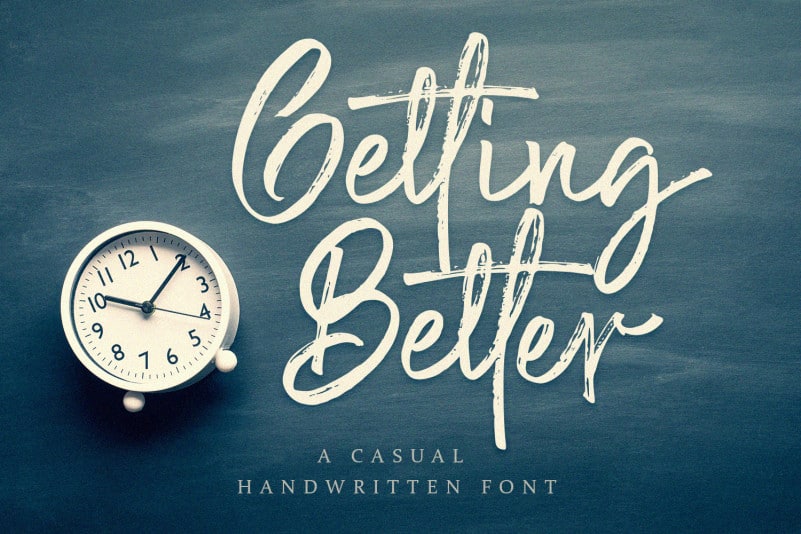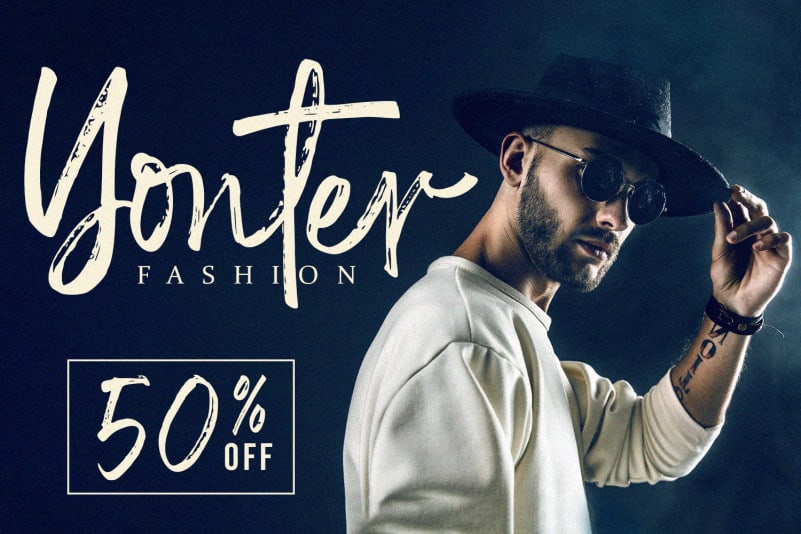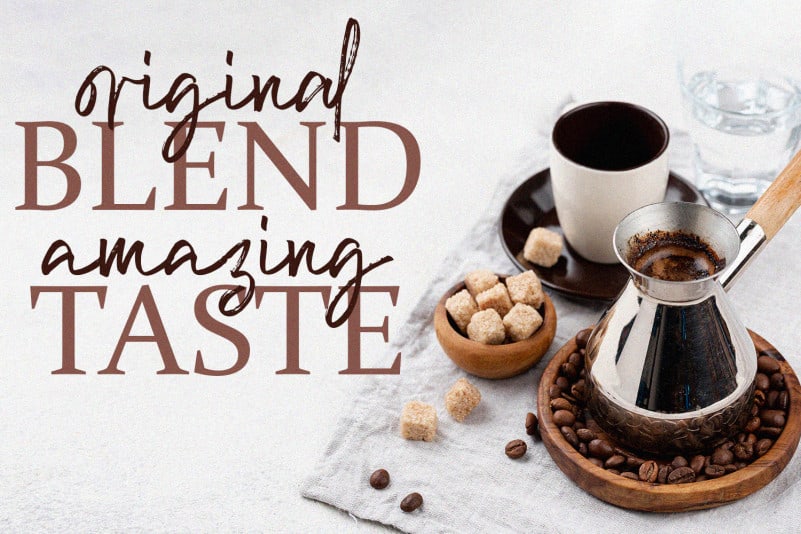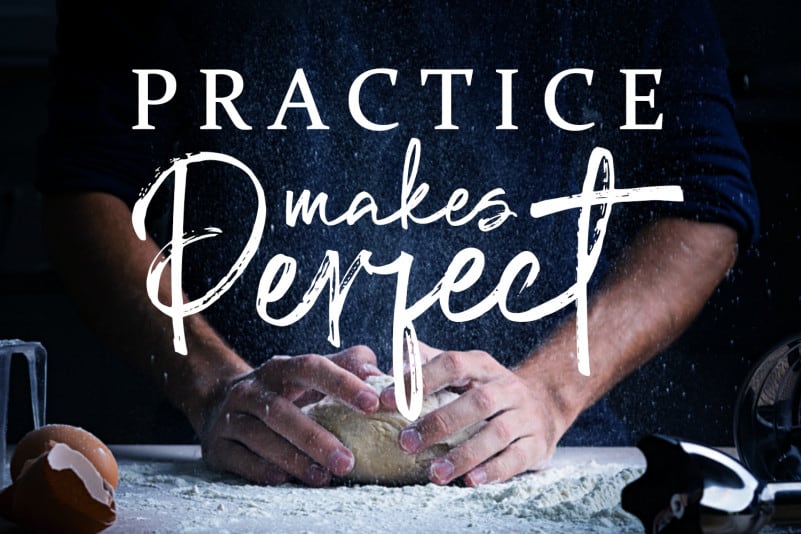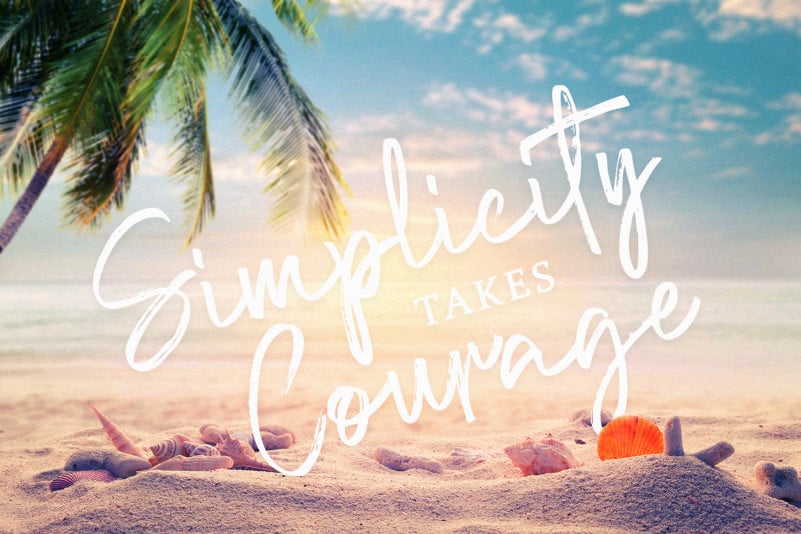
Getting Better Font
Getting Better Font – Give your designs an authentic handcrafted feel. Getting Better Brush Font is perfectly suited to logo, stationery, branding, typography quotes, magazine or book cover, website header, clothing, branding, packaging design, restaurant and more.